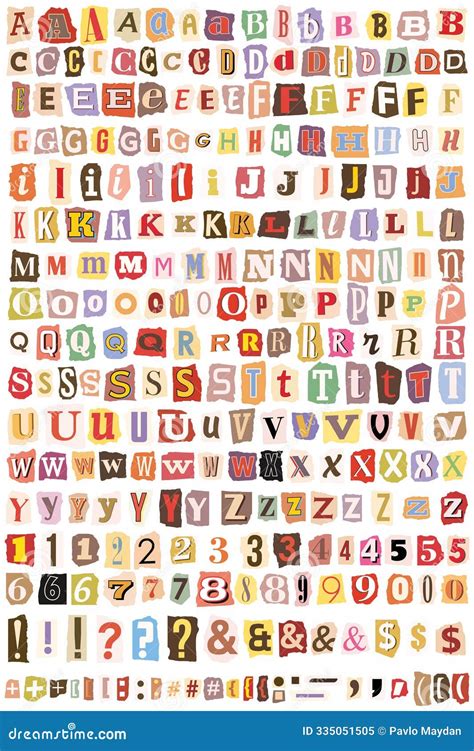
Creating a ransom letter font can be a fascinating project for designers and typographers. This type of font is often associated with classic crime movies and mystery novels, where the anonymous sender demands payment in exchange for the safe return of something valuable. The ransom letter font is typically characterized by its irregular, cut-out letters, which are often created by cutting out words from newspapers or magazines. This distinctive style has become iconic in popular culture, and recreating it digitally can be a fun and educational exercise.
Understanding the Ransom Letter Font
The ransom letter font is not a standard typeface you can find in a font library. Instead, it is a style that mimics the look of letters cut out from newspapers or magazines. The irregular shapes and varying sizes of the letters give it a unique, handcrafted appearance. This style has been popularized by numerous films and books, making it a recognizable element in the world of crime and mystery.
Historical Context of the Ransom Letter Font
The ransom letter font gained prominence through its use in various media. One of the most famous examples is the ransom note left by the kidnappers of the Lindbergh baby in 1932. This note, written with cut-out letters from newspapers, became a iconic symbol of the crime. The style has since been replicated in numerous films, TV shows, and books, cementing its place in popular culture.
Creating a Ransom Letter Font
Creating a ransom letter font involves several steps. You can either design it from scratch or use existing tools to generate the effect. Below are the steps to create a ransom letter font using both methods.
Method 1: Designing from Scratch
Designing a ransom letter font from scratch requires some basic graphic design skills. Here are the steps to follow:
- Choose a base font: Start with a simple, sans-serif font. This will serve as the foundation for your ransom letter font.
- Create irregular shapes: Use a graphic design tool like Adobe Illustrator or Photoshop to create irregular shapes for each letter. You can do this by manually adjusting the paths and anchor points of each letter.
- Vary the sizes: Make sure each letter is slightly different in size to mimic the cut-out effect. This will give your font a more authentic look.
- Add texture: To make the letters look like they were cut from paper, add a textured effect. You can do this by overlaying a grainy texture or using a rough brush tool.
- Save your font: Once you are satisfied with the design, save each letter as an individual image file. You can then use these images to create a custom font using a font creation tool.
π Note: Designing a ransom letter font from scratch can be time-consuming, but it allows for complete customization and control over the final product.
Method 2: Using Existing Tools
If you prefer a quicker method, you can use existing tools to generate a ransom letter font. There are several online tools and software that can help you create this effect without starting from scratch.
- Online generators: Websites like FontForge or Glyphs offer tools to create custom fonts. You can use these tools to adjust the shapes and sizes of existing letters to mimic the ransom letter style.
- Font editing software: Software like Adobe Illustrator or Photoshop can also be used to create a ransom letter font. You can import an existing font and then manually adjust each letter to achieve the desired effect.
- Text effects: Some graphic design software offers text effects that can simulate the ransom letter style. Look for effects like βcut-outβ or βrough edgesβ to achieve the desired look.
π Note: Using existing tools can save time, but it may limit your ability to customize the font to your exact specifications.
Using the Ransom Letter Font
Once you have created your ransom letter font, you can use it in various projects. Here are some ideas for incorporating the font into your designs:
- Movie posters: Use the font to create a vintage-style movie poster. The ransom letter font can add a touch of mystery and intrigue to your design.
- Book covers: Design a book cover with the ransom letter font to give it a classic crime novel feel. This can be particularly effective for mystery or thriller genres.
- Invitations: Create invitations for a themed party or event using the ransom letter font. This can add a fun and unique touch to your invitations.
- Social media graphics: Use the font to create eye-catching graphics for social media. The distinctive style can help your posts stand out and attract attention.
Examples of Ransom Letter Font in Popular Culture
The ransom letter font has been used extensively in popular culture. Here are some notable examples:
| Media | Example | Description |
| Movies | Pulp Fiction | The ransom letter font is used in the opening credits of the film, adding to its noir-style aesthetic. |
| TV Shows | Breaking Bad | The show features a ransom note in one of its episodes, which is written in a style similar to the classic ransom letter font. |